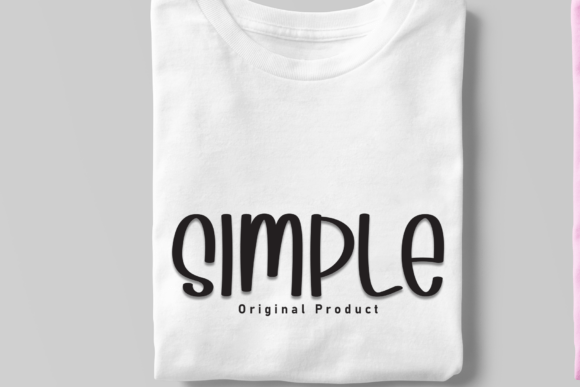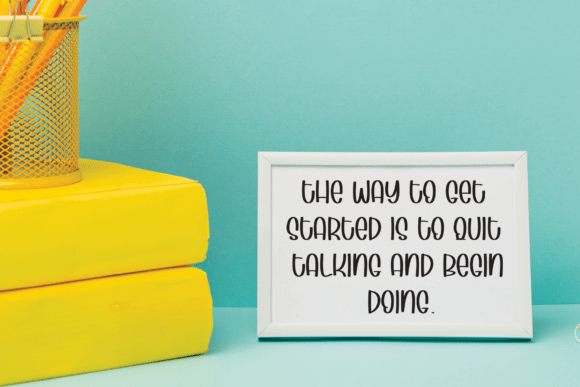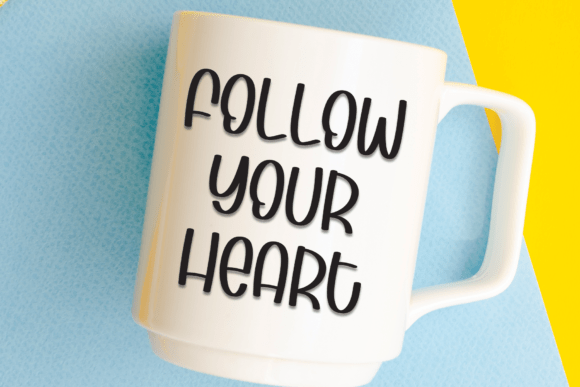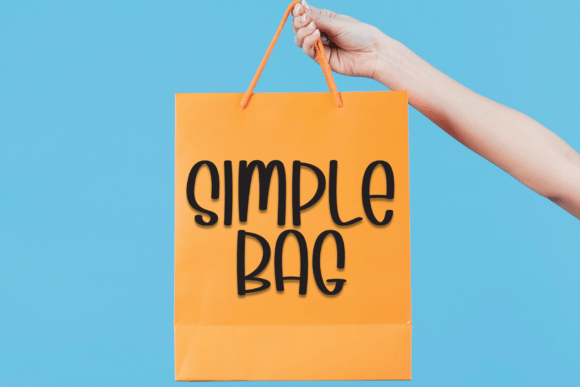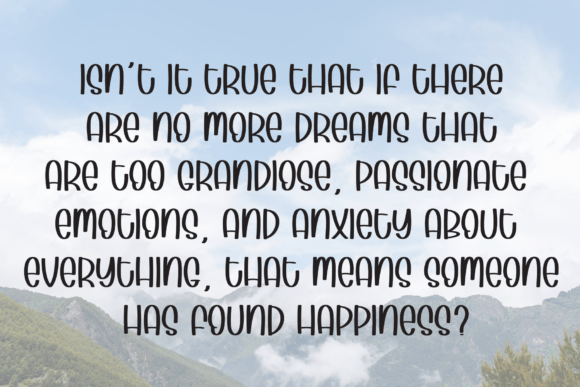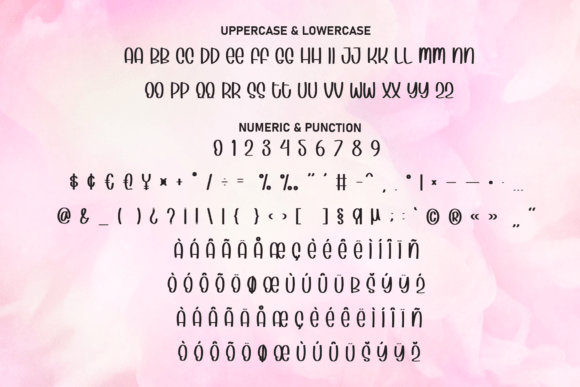
Discover the Charming Allure of Grand Barbie Font
In the world of typography, few fonts manage to capture the essence of playfulness and whimsy as effectively as the Grand Barbie Font. This exquisitely friendly handwritten display font has been making waves in the design community, and for good reason. Its delightfully cute and playfully fun aesthetic makes it an irresistible addition to any design project.
A Font that Channels Lighthearted Appeal
Grand Barbie Font is a uniquely crafted script that embodies a lighthearted appeal that’s hard to resist. Its charming allure is perfect for designers and crafters looking to add a touch of whimsy to their work. Whether you’re creating wedding invitations, greeting cards, or any other design project, this font is sure to elevate your work and leave a lasting impression.
One of the standout features of Grand Barbie Font is its versatility. It’s particularly well-suited for wedding invitations, where its playful touch can add a romantic and lighthearted feel. Similarly, it’s perfect for greeting cards, where its energetic vibe can help infuse the recipient with a sense of joy and excitement. Whether you’re a professional designer or a crafty DIY enthusiast, this font is sure to become a go-to in your toolkit.
A Creative Catalyst for Designers and Crafters
Grand Barbie Font is more than just a pretty face – it’s a creative catalyst that’s ready to transform and uplift your designs. Its sweet, amicable charisma has the power to inject a dash of whimsical joy into even the most mundane design project. Whether you’re working on a logo, brochure, or social media graphic, this font is sure to spark your creativity and inspire new ideas.
What Makes Grand Barbie Font So Special?
So, what sets Grand Barbie Font apart from other fonts on the market? Here are just a few of its standout features:
- Handwritten aesthetic: Grand Barbie Font boasts a beautifully handwritten aesthetic that’s both personal and approachable.
- Playful touch: This font adds a playful touch to any design project, making it perfect for designers and crafters who want to inject a sense of fun and whimsy into their work.
- Versatility: Grand Barbie Font is incredibly versatile, making it suitable for a wide range of design projects, from wedding invitations to social media graphics.
- Easy to read: Despite its playful aesthetic, Grand Barbie Font is surprisingly easy to read, making it perfect for use in both digital and print designs.
Tips for Using Grand Barbie Font
In conclusion, Grand Barbie Font is a truly special font that’s sure to delight designers and crafters alike. Its charming allure, playful touch, and versatility make it an excellent addition to any design project. Whether you’re creating wedding invitations, greeting cards, or social media graphics, this font is sure to elevate your work and leave a lasting impression. So why wait? Discover the charming allure of Grand Barbie Font for yourself, and get ready to inject a dash of whimsical joy into your designs.